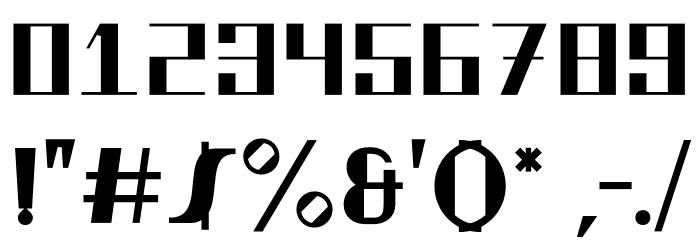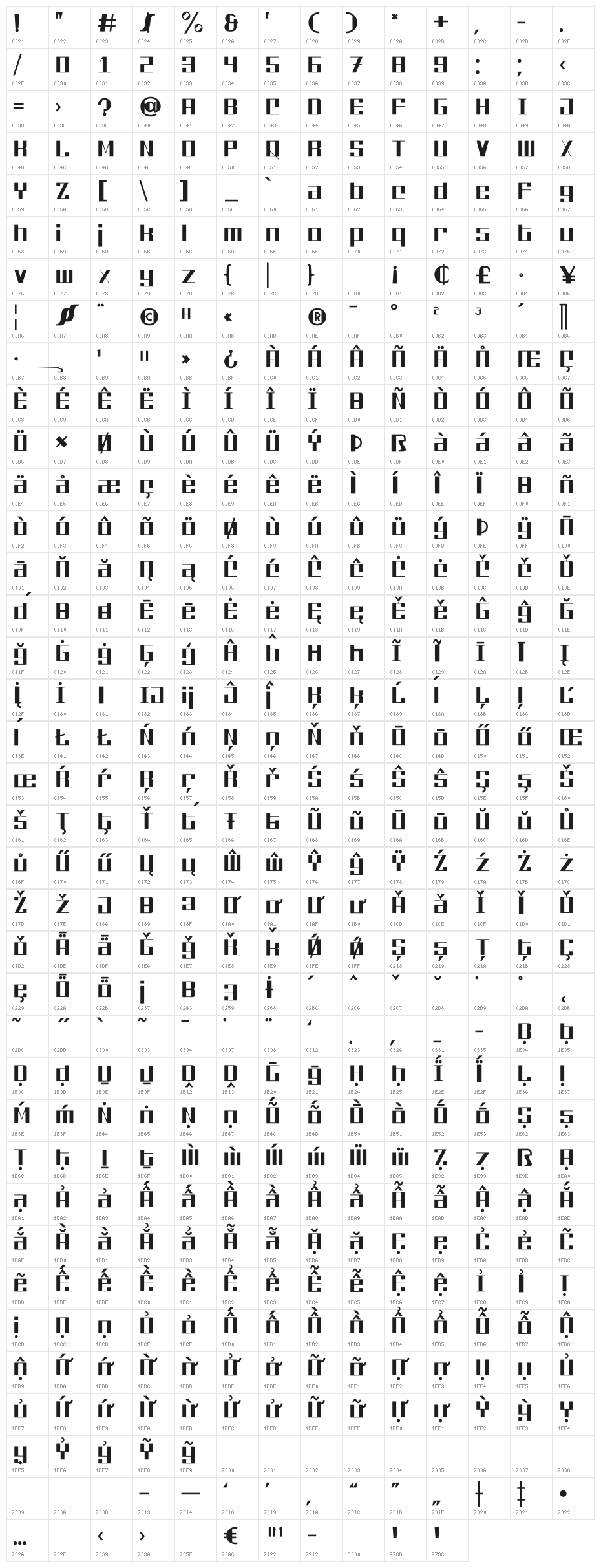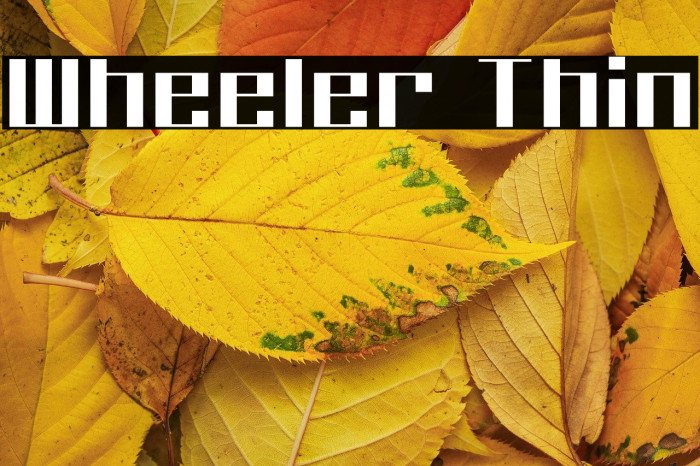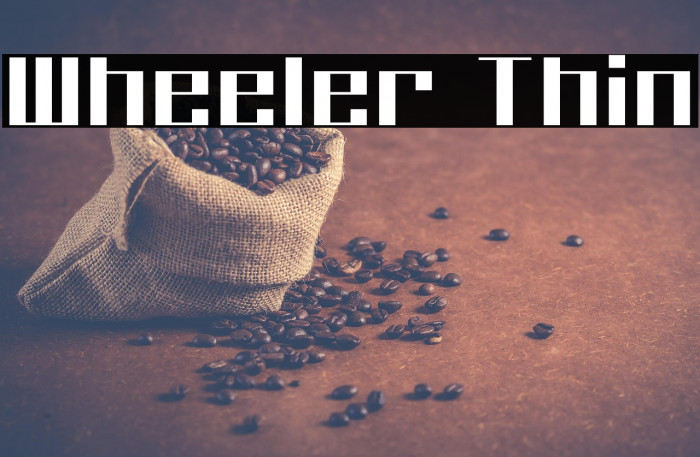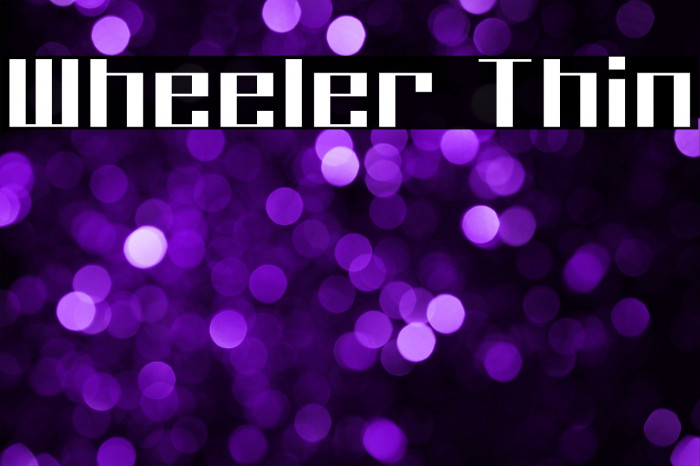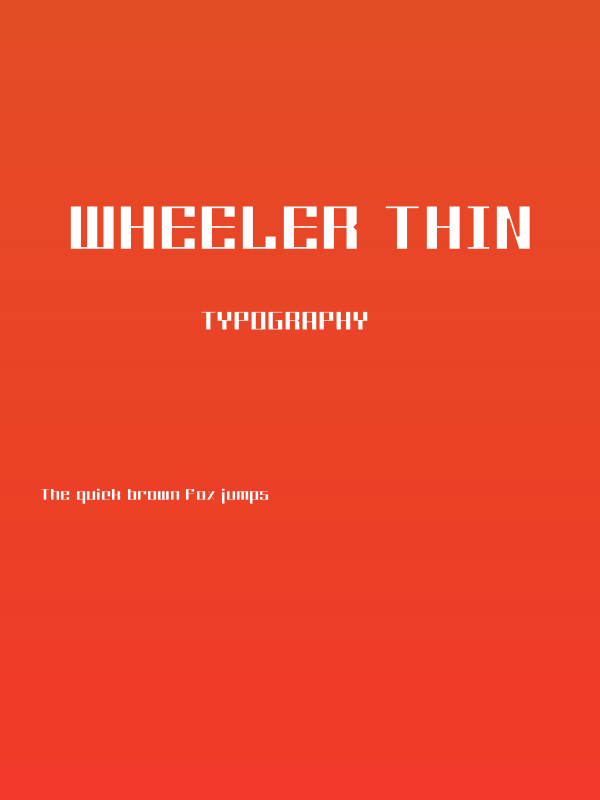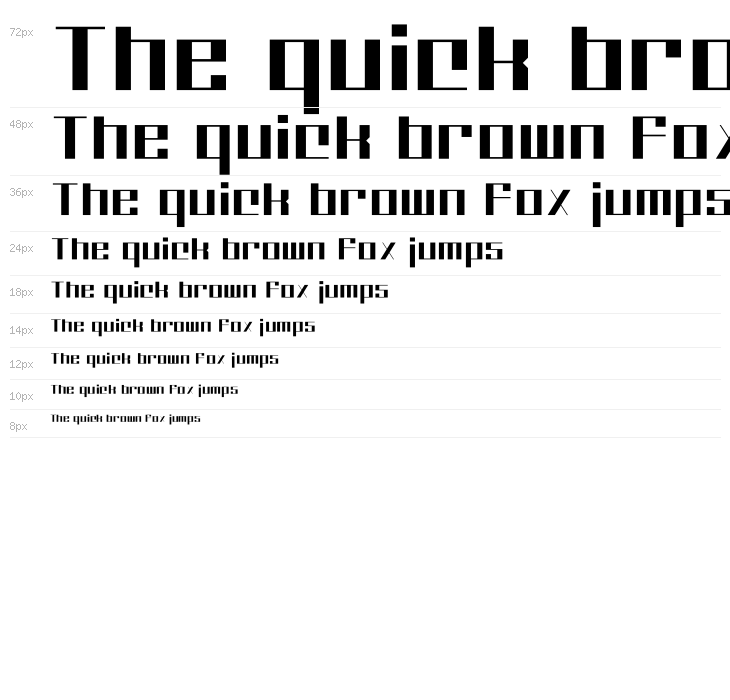
Wheeler Thin Font
Wheeler Thin Description
This font features a bold, geometric design with sharp angles and a modern aesthetic. The uppercase letters are characterized by their blocky, angular forms, while the lowercase letters maintain a consistent style with slightly softer edges. The numerals are distinct and easily readable, following the same geometric principles. Special characters are designed to match the overall style, adding a cohesive look to the font. The high contrast between thick and thin strokes gives it a striking appearance, making it suitable for attention-grabbing designs.
| Use Case | Headlines, Logos |
| Proposed Projects | Ideal for modern branding, poster design, and digital media where a bold statement is needed. |